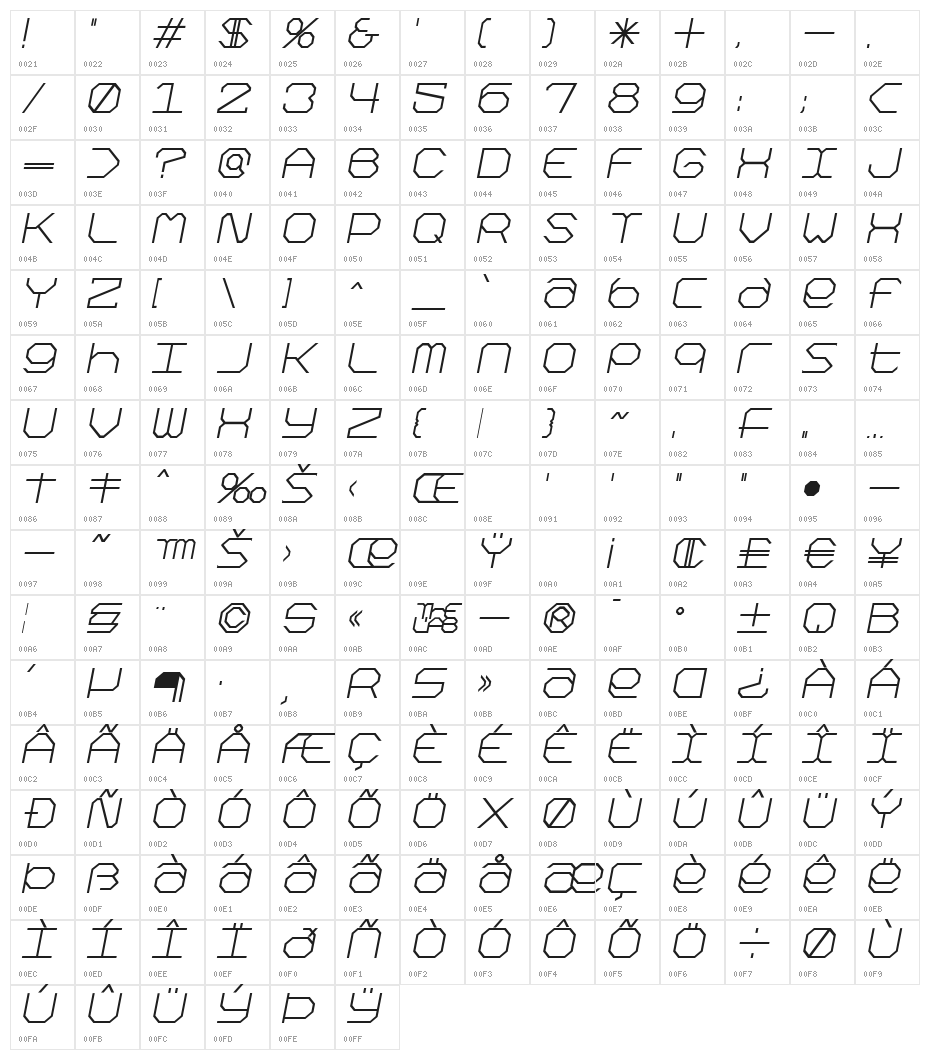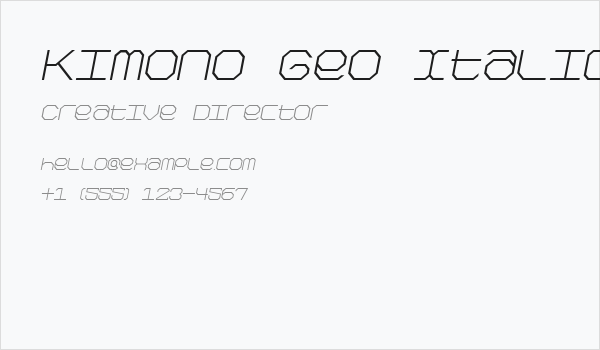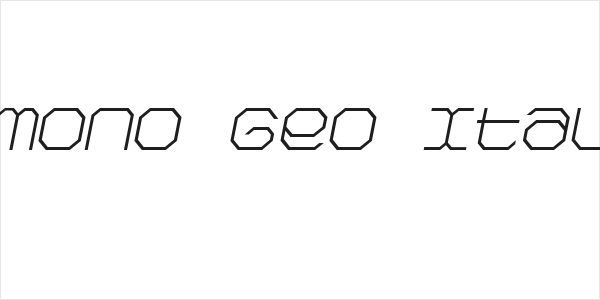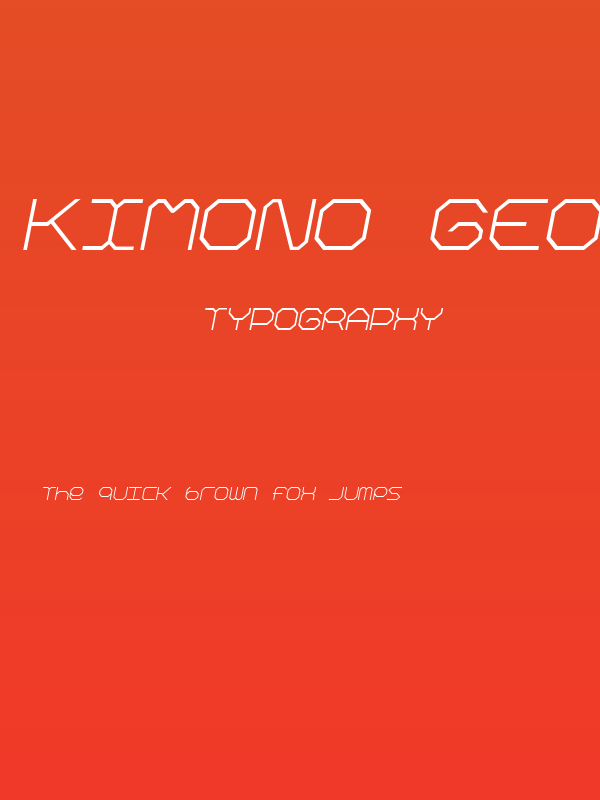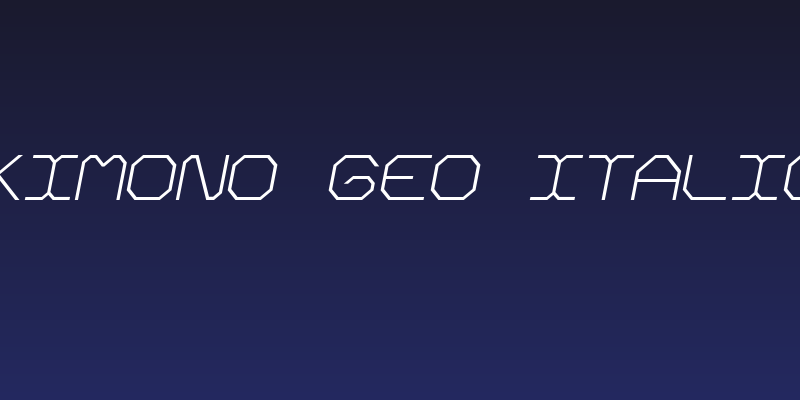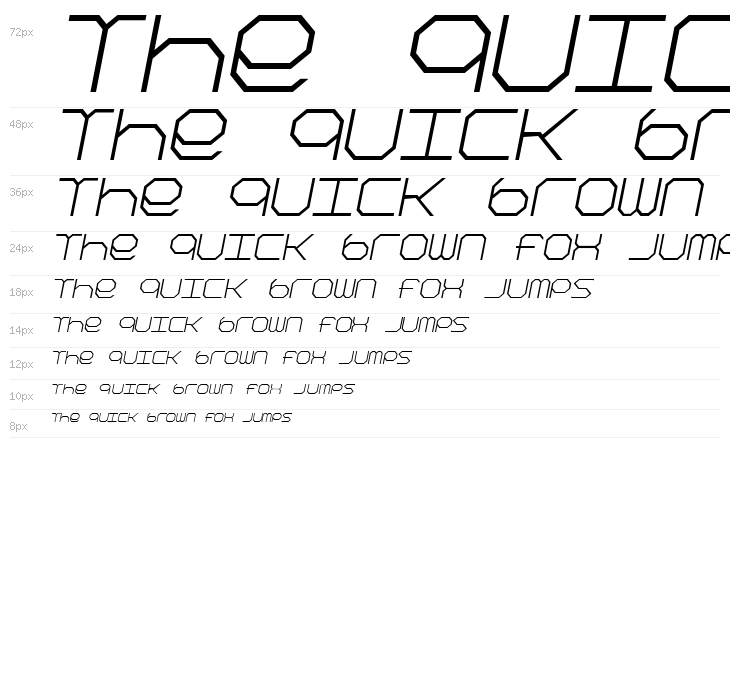
Kimono Geo Italic Font
Kimono Geo Italic Description
This font features a geometric and angular design, characterized by its sharp edges and clean lines. Each character is constructed with a consistent stroke width, giving it a uniform appearance. The italic style adds a dynamic and forward-leaning aspect, enhancing its modern and futuristic feel. The uppercase and lowercase letters maintain a cohesive look, while the numerals and special characters complement the overall design. This font's unique structure makes it stand out, ideal for projects that require a contemporary and tech-inspired aesthetic.